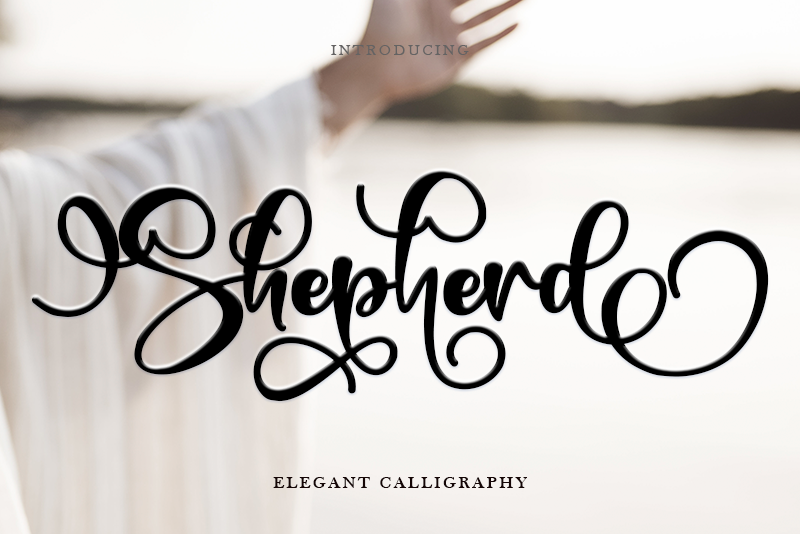
Shepherd
Seeking a font that exudes luxury, romance, and whimsy? Look no further than the elegant Shepherd font! This stunning calligraphy font is perfect for adding a touch of sophistication and elegance to any design. With its flowing script and ornate details, Shepherd evokes the feeling of fine parchment or velvety soft pages.
Whether you're crafting a wedding invitation, a birthday card, or a journal page, Shepherd's romantic charm is sure to impress. Its intricate letterforms and flourishes add a level of sophistication and refinement that will elevate any project from ordinary to extraordinary.
If you're looking for a font that can add a touch of whimsy and playfulness to your designs, Shepherd is the perfect choice. Its flowing lines and ornate details create a sense of movement and energy that's hard to resist. And with its luxurious feel, you'll want to use it on everything from menus to gift tags to make your projects truly special.